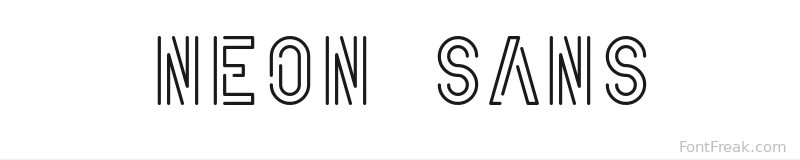
Neon Sans
About Neon Sans
Neon Sans, crafted by GGBot, is a striking sans-serif font that embodies a modern aesthetic with a bold personality. Released in 2021 and updated in 2024, this font captures the essence of neon signage with its clean lines and contemporary design. The visual characteristics of Neon Sans include a consistent stroke weight that provides a sense of uniformity, while the subtle contrast between the lines adds depth and interest. The spacing is meticulously designed to enhance readability, making it suitable for various applications.
This font shines in several use cases, making it an ideal choice for graphic designers and content creators alike. It is particularly effective for movie posters, where its vibrant style can evoke excitement and capture attention. Neon Sans is also an excellent fit for event flyers, especially for nightlife promotions or music festivals, where a modern and edgy look is desired. Additionally, small business owners can utilize this font for restaurant menus or branding materials, giving their visual identity a fresh and dynamic touch.
The target audience for Neon Sans includes graphic designers looking to elevate their projects, small business owners aiming for eye-catching marketing materials, and content creators seeking a unique style for their digital content.
What sets Neon Sans apart from other fonts is its distinctive ability to blend modernity with a playful twist, making it versatile enough for both professional and creative uses. With a Neon Sans font free download available, users can easily incorporate this eye-catching typeface into their designs, ensuring their work stands out in a crowded visual landscape.